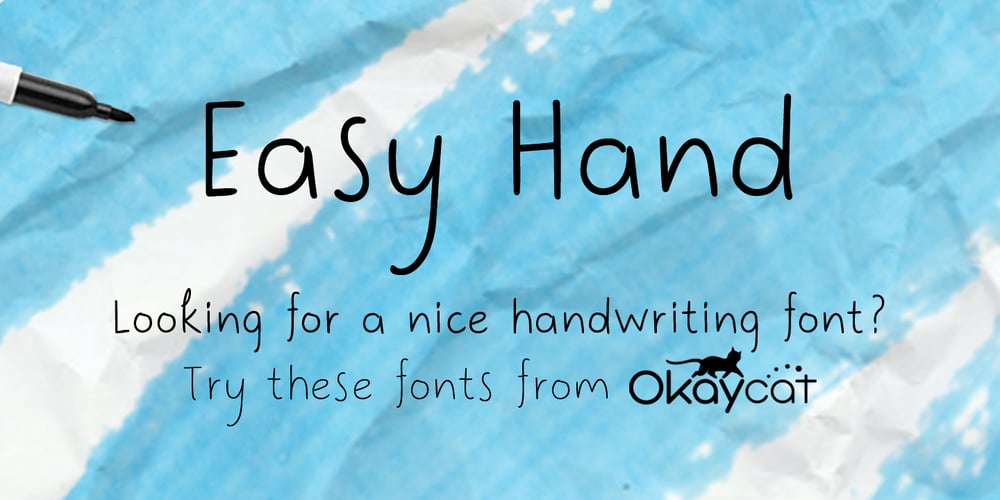
Easy Hand Font Family was designed by Natsuko Hayashida and published by Okaycat. Easy Hand contains 3 styles and family package options. Looking for nice handwriting fonts? Easy Hand from Okaycat comes in 2 weights, Regular and Semibold. You can achieve written by marker look by these easy going fonts!